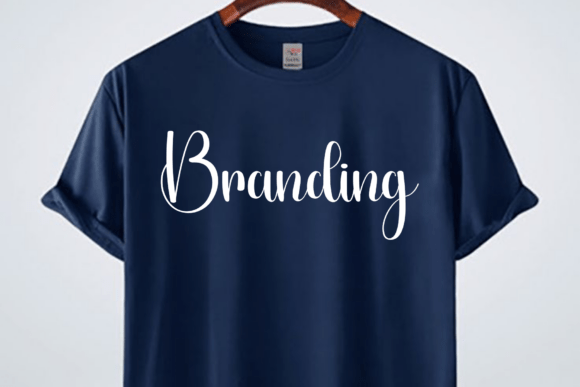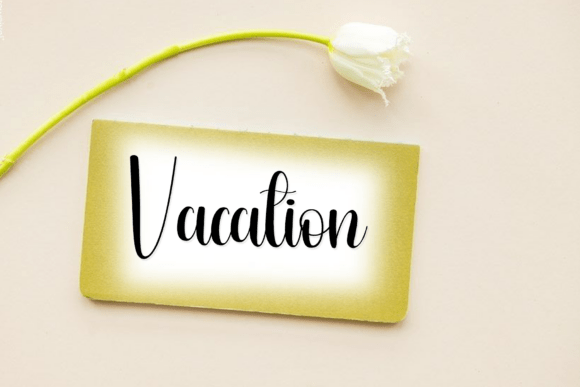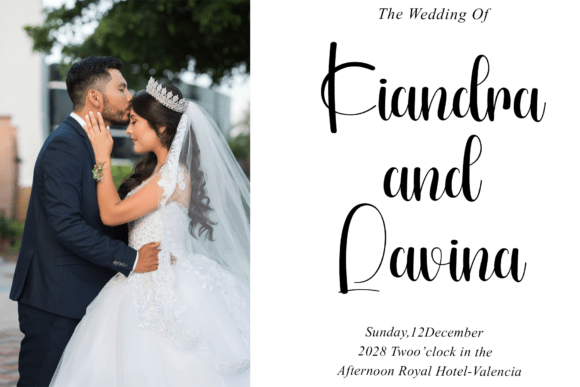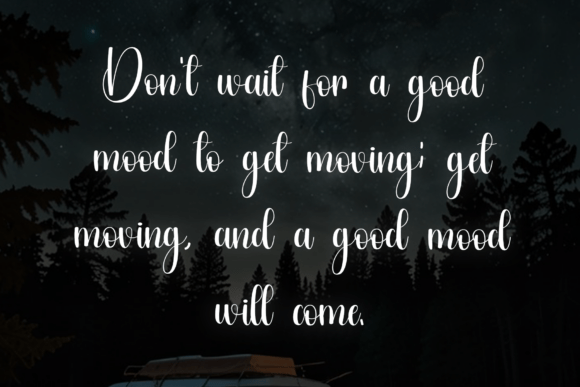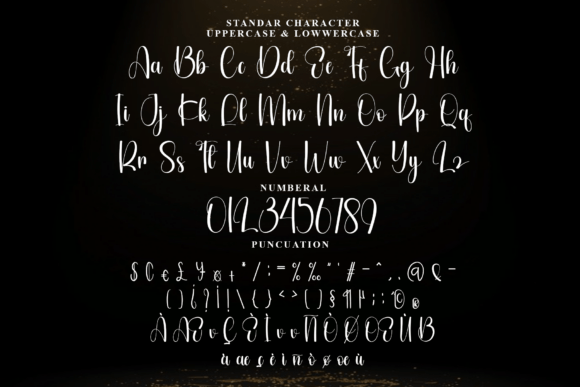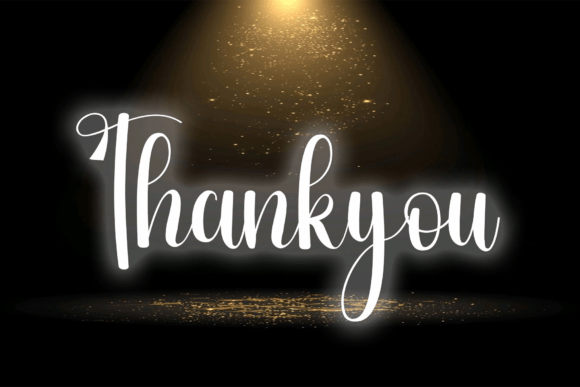
Introducing Enchanteur Font: Elevate Your Design with a Sophisticated Autumnal Script
Are you a designer or crafter looking for a unique and professional font to add a touch of elegance to your autumn-themed projects? Look no further than Enchanteur Font, a sophisticated and rhythmic script font that embodies the essence of the season. As part of a modern handwritten collection, Enchanteur features high-contrast strokes with thick, grounded downstrokes and delicate hairline connectors, making it the perfect asset for seasonal autumn marketing, artisanal food packaging, boutique event invitations, and sophisticated editorial headers.
The Characteristics of Enchanteur Font
Enchanteur Font is characterized by its vertically elongated letterforms and graceful, looping ascenders that mimic high-end inkwork. The typeface boasts a unique and professional autumnal visual voice, with a blend of thick and thin strokes that give it a sense of fluidity and movement. The high-contrast strokes create a sense of drama and elegance, making it perfect for designs that require a touch of sophistication.
What Sets Enchanteur Font Apart
So, what sets Enchanteur Font apart from other script fonts on the market? Here are a few key features that make it a standout:
- High-contrast strokes: The thick, grounded downstrokes and delicate hairline connectors create a sense of visual interest and depth.
- Vertically elongated letterforms: The elongated letterforms give the font a sense of elegance and sophistication.
- Graceful, looping ascenders: The looping ascenders add a touch of whimsy and fluidity to the font.
- Autumnal visual voice: The font’s autumnal aesthetic makes it perfect for seasonal marketing and designs.
Use Cases for Enchanteur Font
Enchanteur Font is a versatile font that can be used in a variety of design projects, including:
- Seasonal autumn marketing: Use Enchanteur Font to create eye-catching marketing materials that capture the essence of the autumn season.
- Artisanal food packaging: Add a touch of elegance to your food packaging with Enchanteur Font.
- Boutique event invitations: Create sophisticated and stylish event invitations with Enchanteur Font.
- Sophisticated editorial headers: Use Enchanteur Font to add a touch of elegance to your editorial headers.
Why Choose Enchanteur Font?
So, why should you choose Enchanteur Font for your design projects? Here are a few reasons:
- Unique and professional aesthetic: Enchanteur Font has a unique and professional aesthetic that will set your designs apart.
- High-quality design: The font is designed with high-quality, high-contrast strokes that create a sense of visual interest.
- Versatile: Enchanteur Font can be used in a variety of design projects, from marketing materials to editorial headers.
In conclusion, Enchanteur Font is a sophisticated and rhythmic script font that embodies the essence of the autumn season. With its high-contrast strokes, vertically elongated letterforms, and graceful, looping ascenders, it’s the perfect asset for designers and crafters looking to add a touch of elegance to their designs. Whether you’re creating seasonal autumn marketing materials, artisanal food packaging, boutique event invitations, or sophisticated editorial headers, Enchanteur Font is the perfect choice.